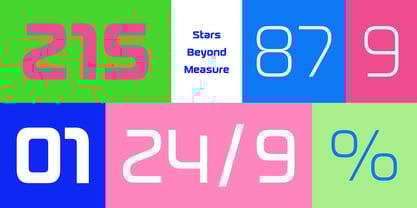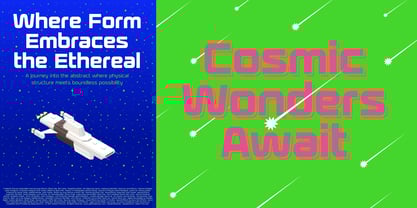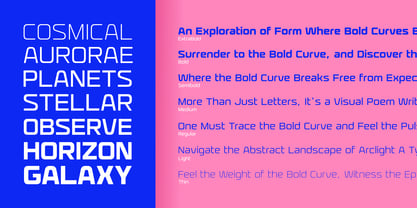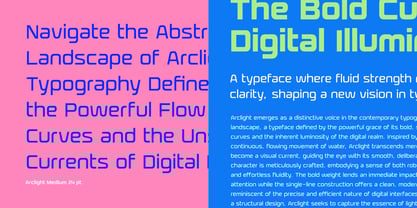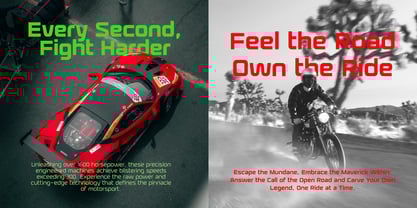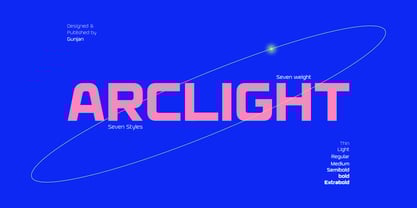
Arclight
by Gunjan
The Arclight Font Family was designed by Gunjan Panchal and published by Gunjan. Arclight contains 7 styles and family package options.
Arclight is a bold typeface defined by its smooth, round curves, avoiding sharp angles for a modern and approachable feel. Designed with digital interfaces and striking visuals in mind, it excels in apps, posters, and print ads. Offering a versatile range from thin to extra-bold weights, Arclight provides a strong and stylish option, particularly well-suited for controls and impactful design elements.
About Gunjan
An Indian graphic & typeface designer with the name of Gunjan Panchal. From the very beginning, he became passionate about lettering and letter drawing. Gunjan received a Bachelor in Visual Arts degree from MSU Vadodara. He began his career as an art director in an advertising agency. While working there, he found connection among typeface design and calligraphy. As his interest in typeface design evolved, he started working with an Indian typeface design studio. Gunjan is a native Gujarati speaker and writer. During his work with the Indian Typeface Design Studio, he acquired an interest in Gujarati, Devanagari, Gurmukhi, and Latin. For the goal to reach more people, he wants to create more typeface. To see his drawings and sketches, follow 'Gunjism' on Instagram.